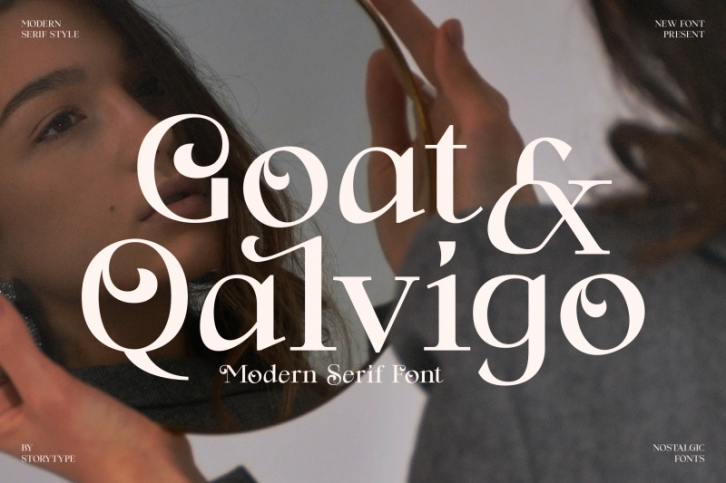
Proudly present Goat _ Qalvigo Typeface , created by Storytype,
A serif modern and classic typeface that has own unique style & modern look.
This typeface is perfect for an elegant & luxury logo, book or movie title design, fashion brand, magazine, clothes, lettering, quotes, and so much more.